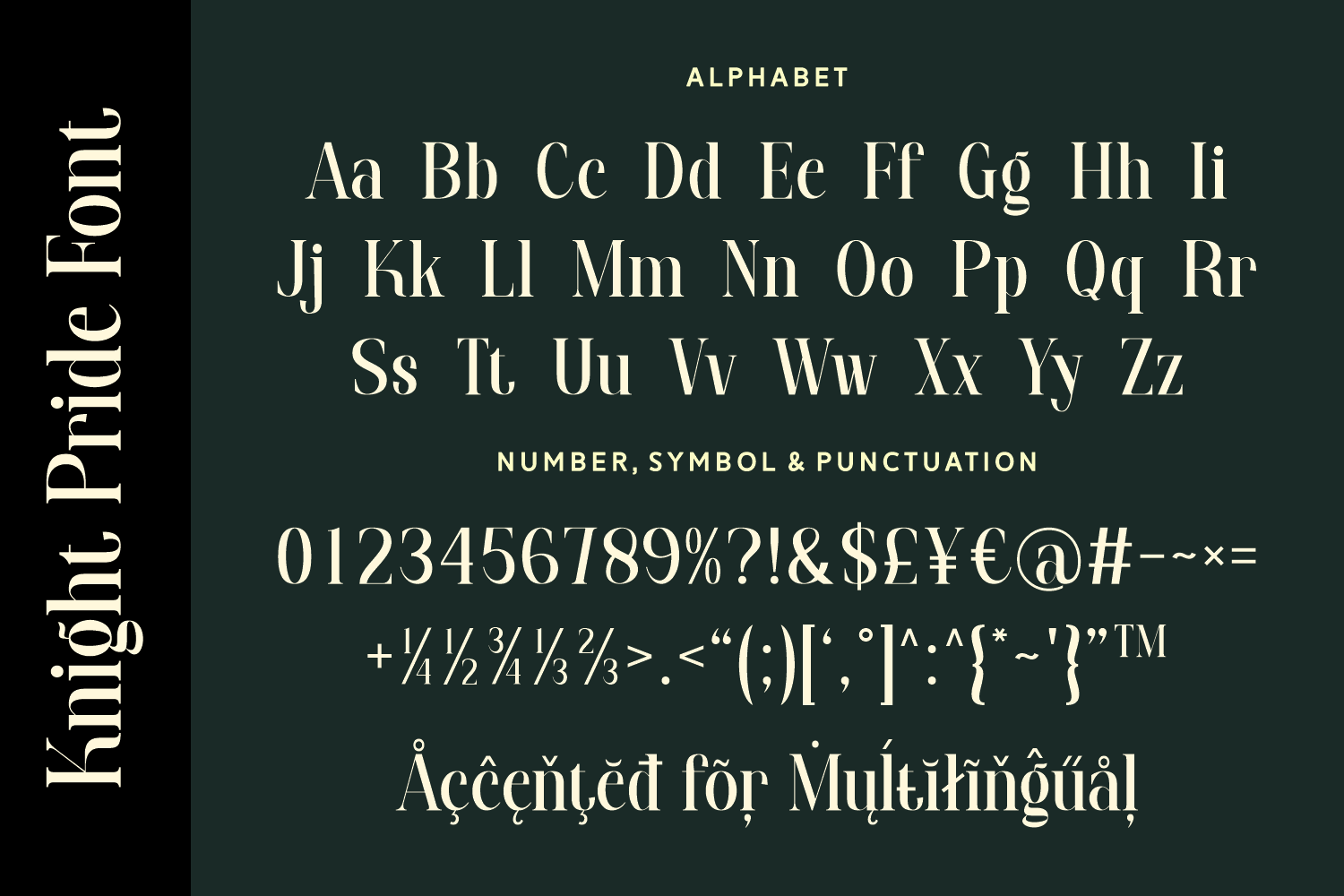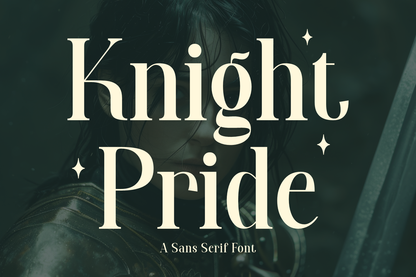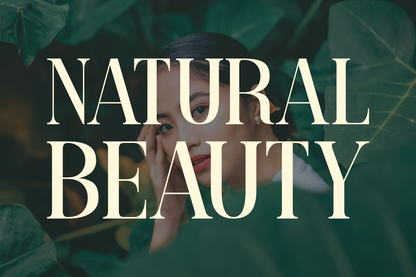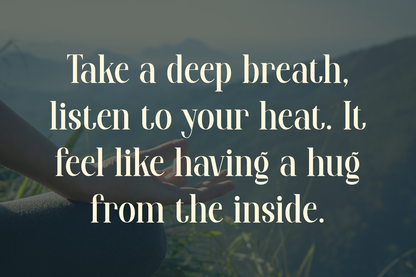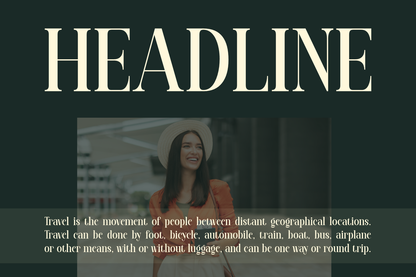
Knight Pride is a sophisticated serif display font that combines vintage charm with modern elegance. Featuring sharp, angular serifs and a distinctive calligraphic touch, it evokes strength and grace in equal measure. With full multilingual support and a rich set of punctuation, Knight Pride stands tall as a bold, refined voice in any creative project.